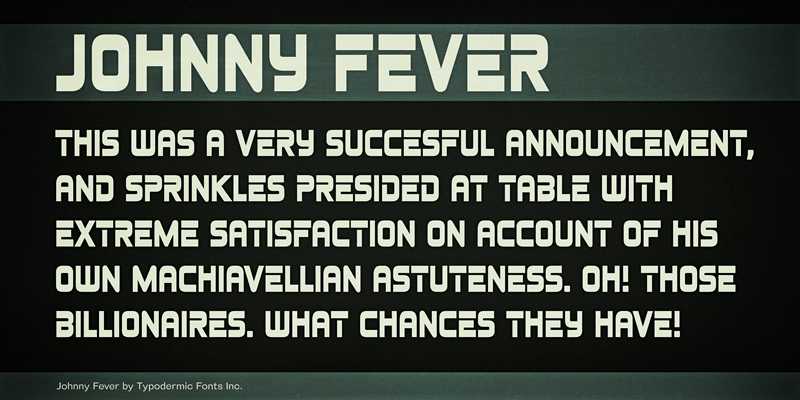
Preview and download Johnny Fever Font. Created by Typodermic Fonts in Techno Various styles with 100% Free license.
Johnny Fever is a 1980’s-style retro font inspired by Amiga 4K demos. This font includes a license that allows free commercial use: sometimes referred to as a desktop license. This allows you to install the font on a computer and use it to create posters, web graphics, game graphics, t-shirts, videos, signs, logos and more. Read the license agreement for details. If you'd like to embed this font in an app, ebook, on the web or anything that's not covered by the desktop license agreement, visit the link below. You'll find distributors who offer different types of licenses or you can contact me for help. http://typodermicfonts.com/johnny-fever/ |